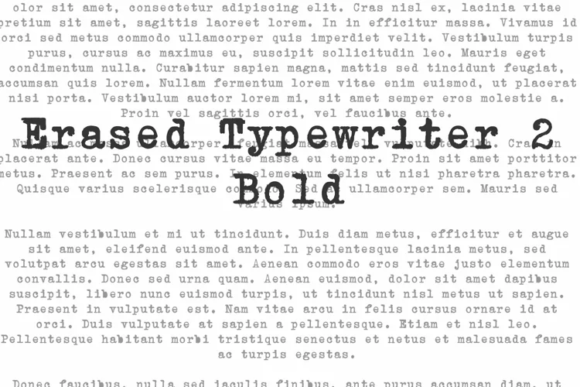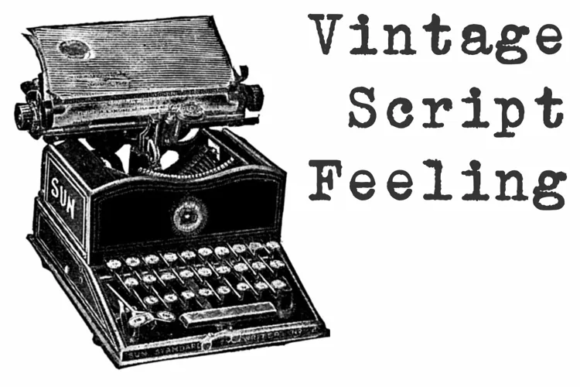
A distressed typewriter font design, great for mimicking the distressed and sloppy ink effect of older machines. Perfectly suited for a wide range of applications from branding and logos, to candy and food packages, Erased Typewriter is a bright and fun typeface with a unique appearance.
Erased Typewriter 2 Font